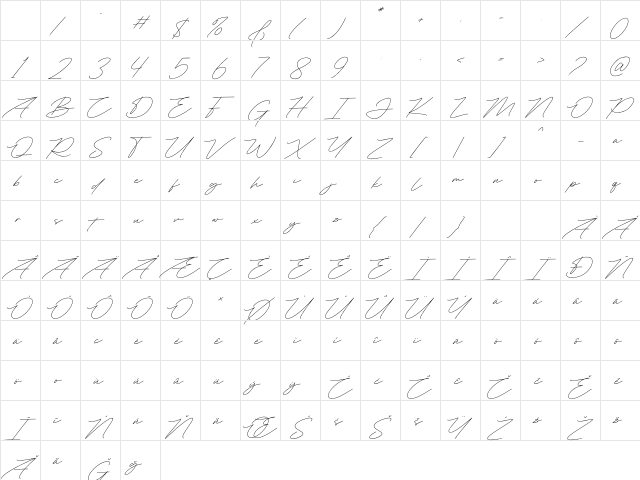
Complete Glendora Regular glyph index. Displaying only characters natively supported by Glendora Regular font.
Glendora is a composed and adaptable typeface that performs quietly and consistently across a wide range of design contexts.